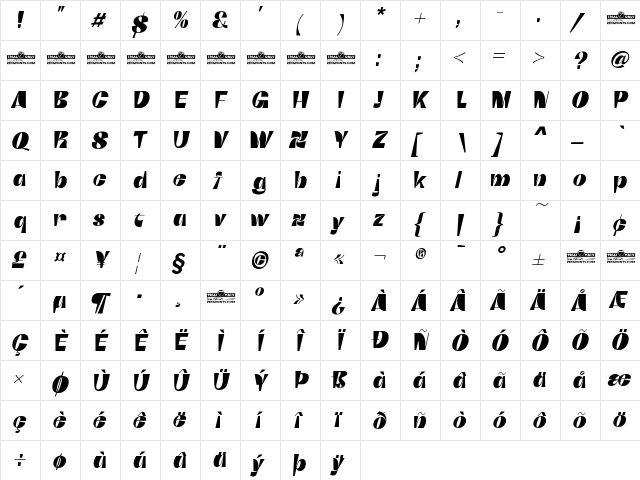
Boring Sans C Trial Heavy Italic
| Foundry | Zetafonts |
| Designer | Cosimo Lorenzo Pancini |
Design Context for Boring Sans C Trial Typeface
Boring Sans C Trial is a composed and adaptable typeface that performs quietly and consistently across a wide range of design contexts. The dynamic lean of this cut emphasises speed and emphasis in any layout.
Pro Tip: Use Boring Sans C Trial for emphasis, pull quotes, and subheadings where its slanted energy can add rhythm to the layout.